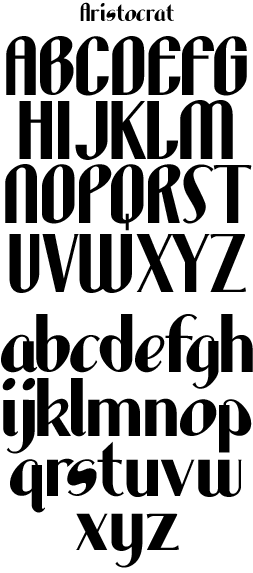
LHF Aristocrat
Inspired by a 1930's advertisement for "Swallow" motorcycles. Terrific for art deco designs.
Includes numbers, full punctuation & accents